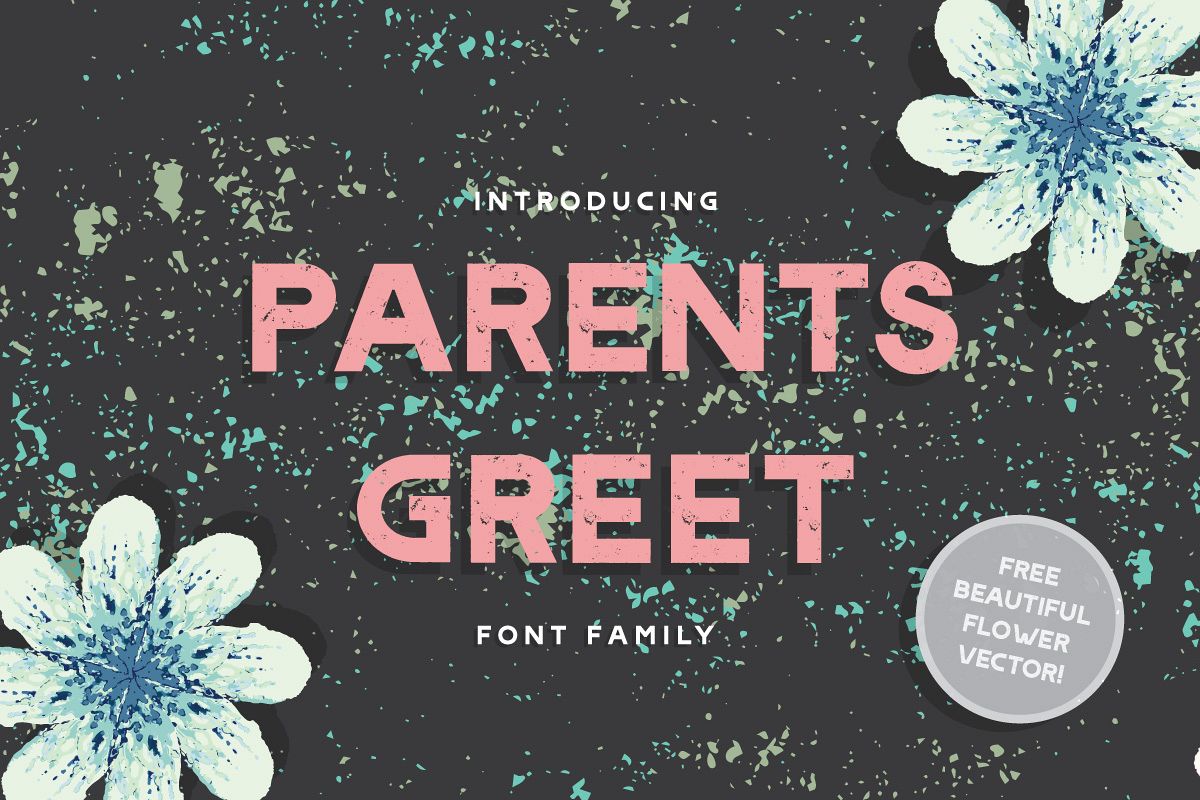
Parents Greet
Parents greet is a display font with grunge, stripe and regular style. Perfect for headline, title, your brand, poster and many more. You also get beautiful vector flowers to decorate your design.  What is inside: